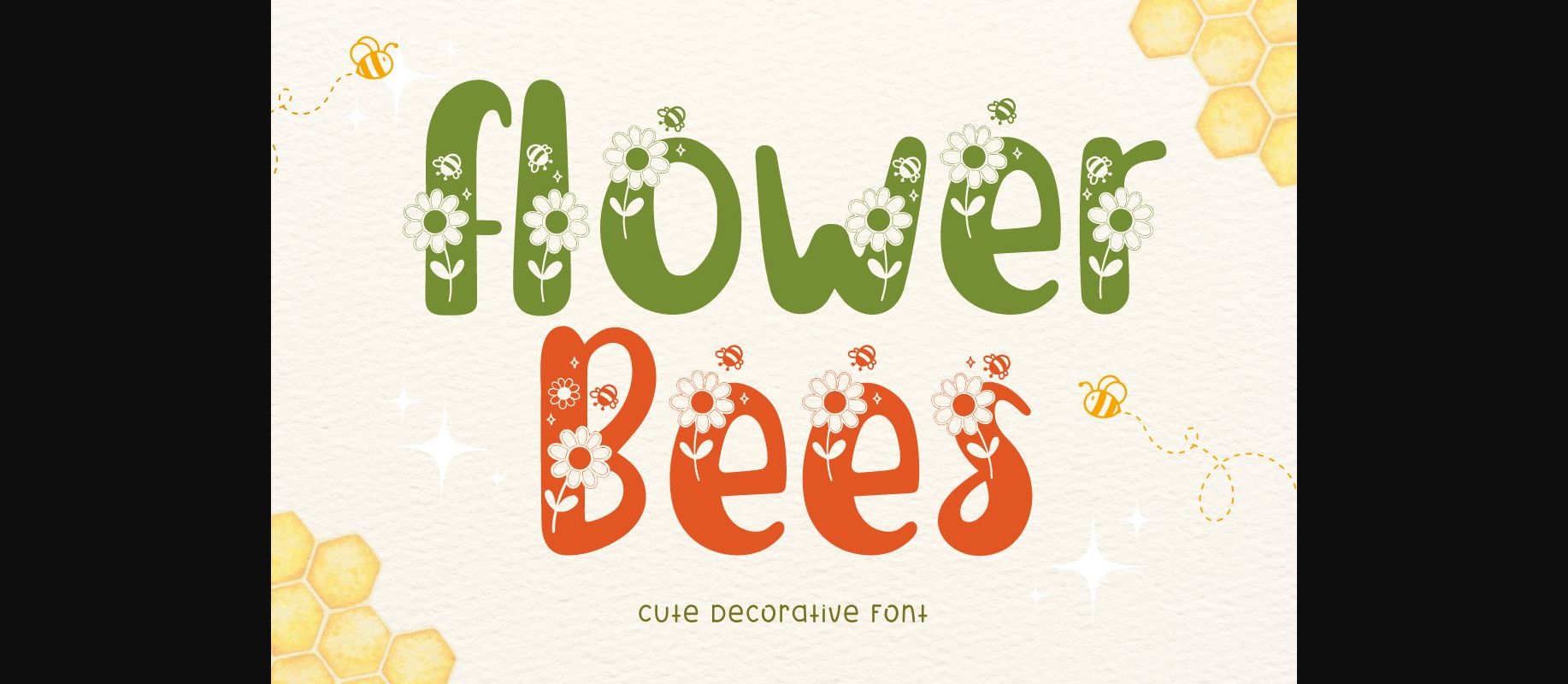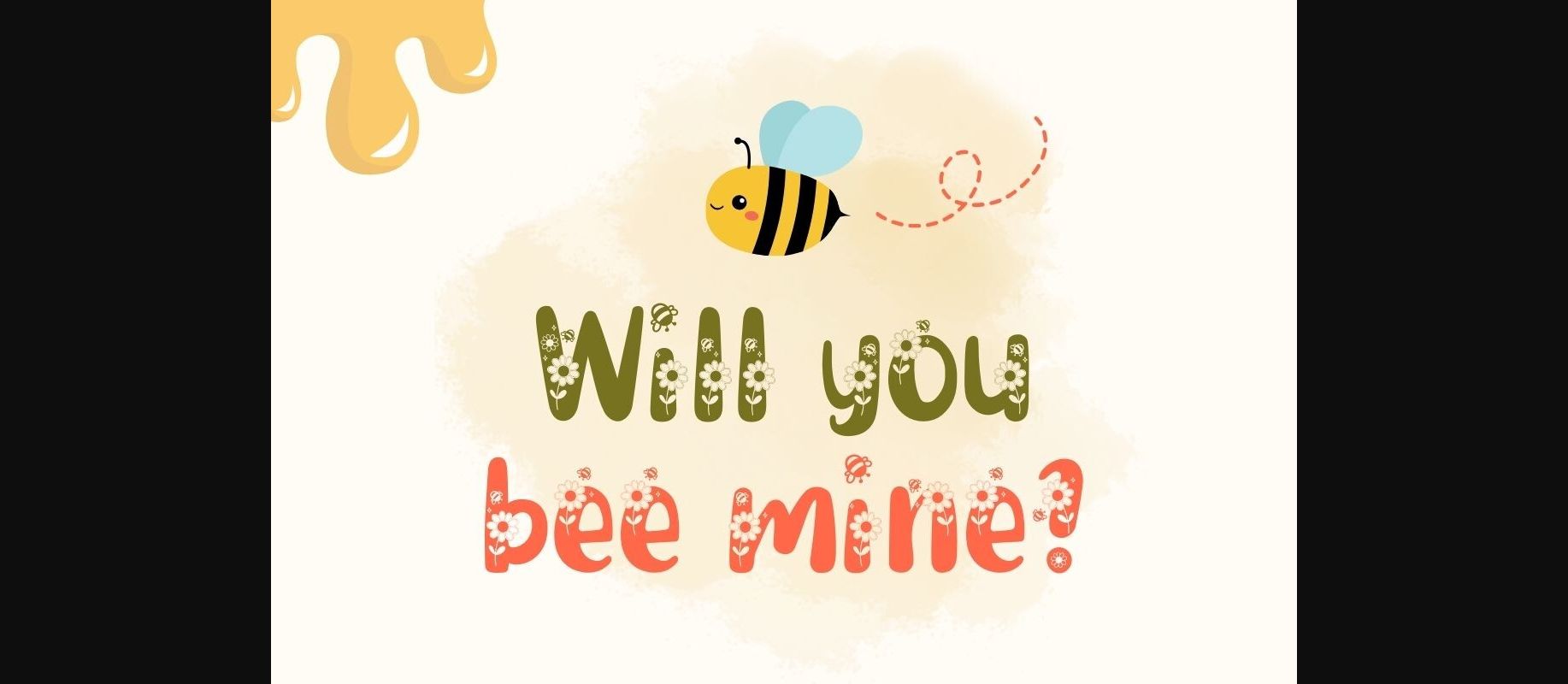
About Flower Bees Font
Flower Bees is a delightful decorative font adorned with charming flowers and bees. Its whimsical design adds a touch of sweetness to any project, from greeting cards to invitations. With playful details and a cheerful vibe, Flower Bees infuses joy and nature-inspired beauty into your designs.